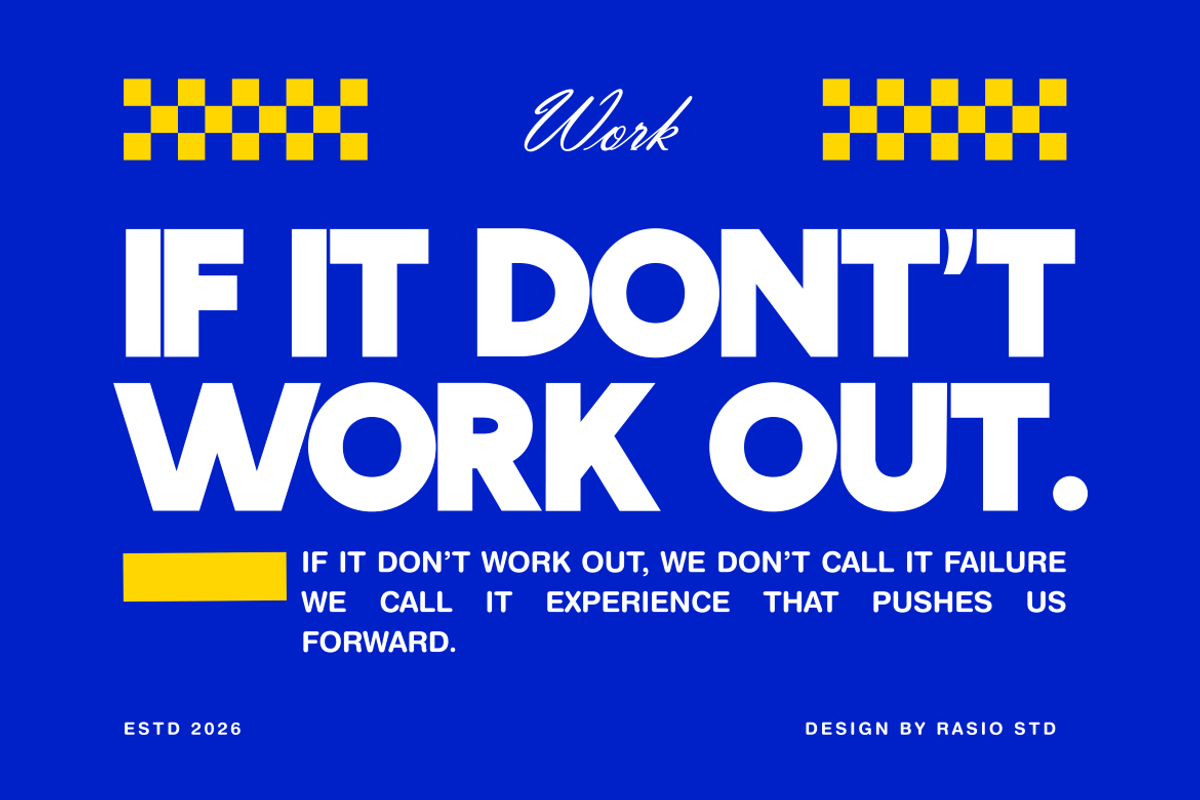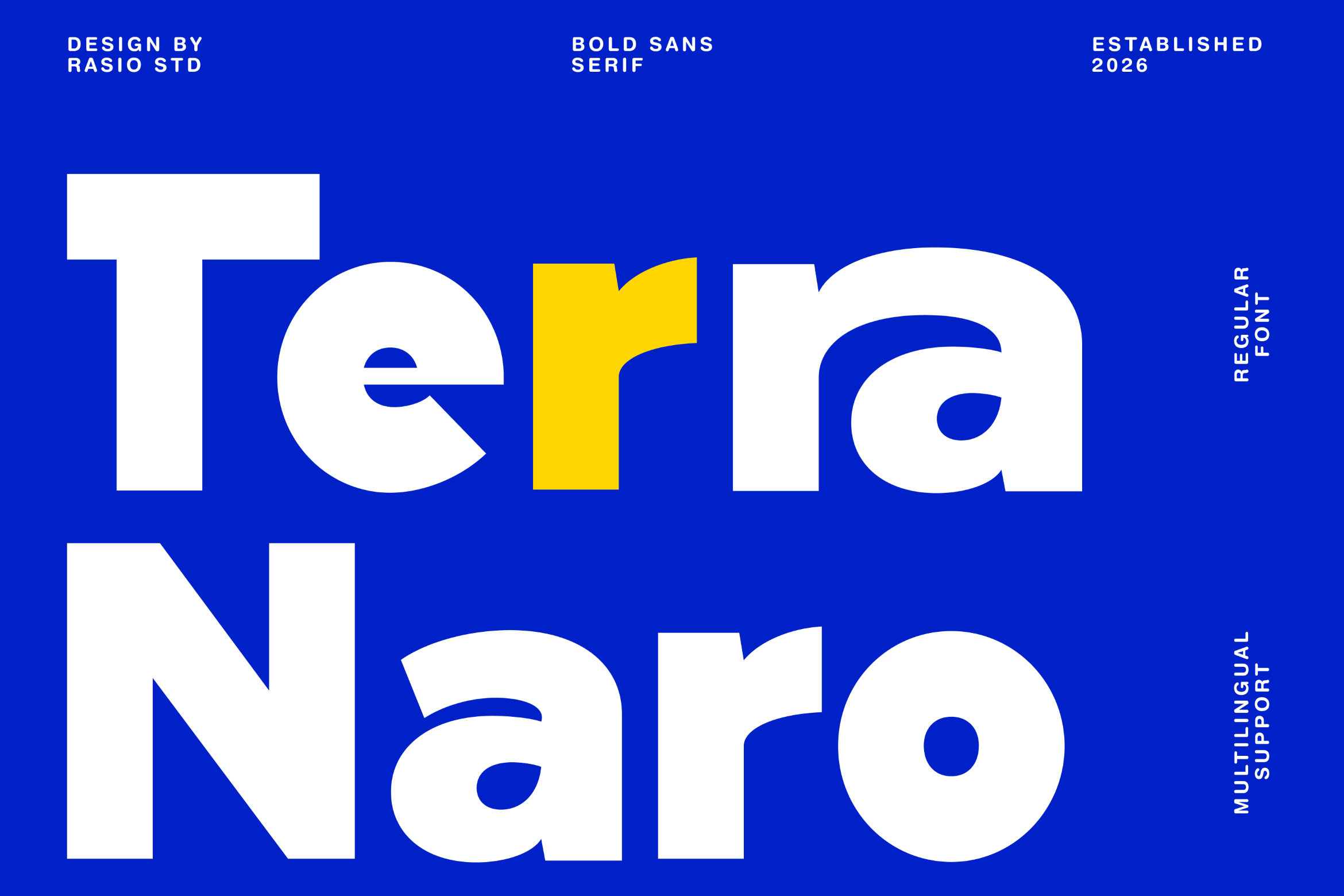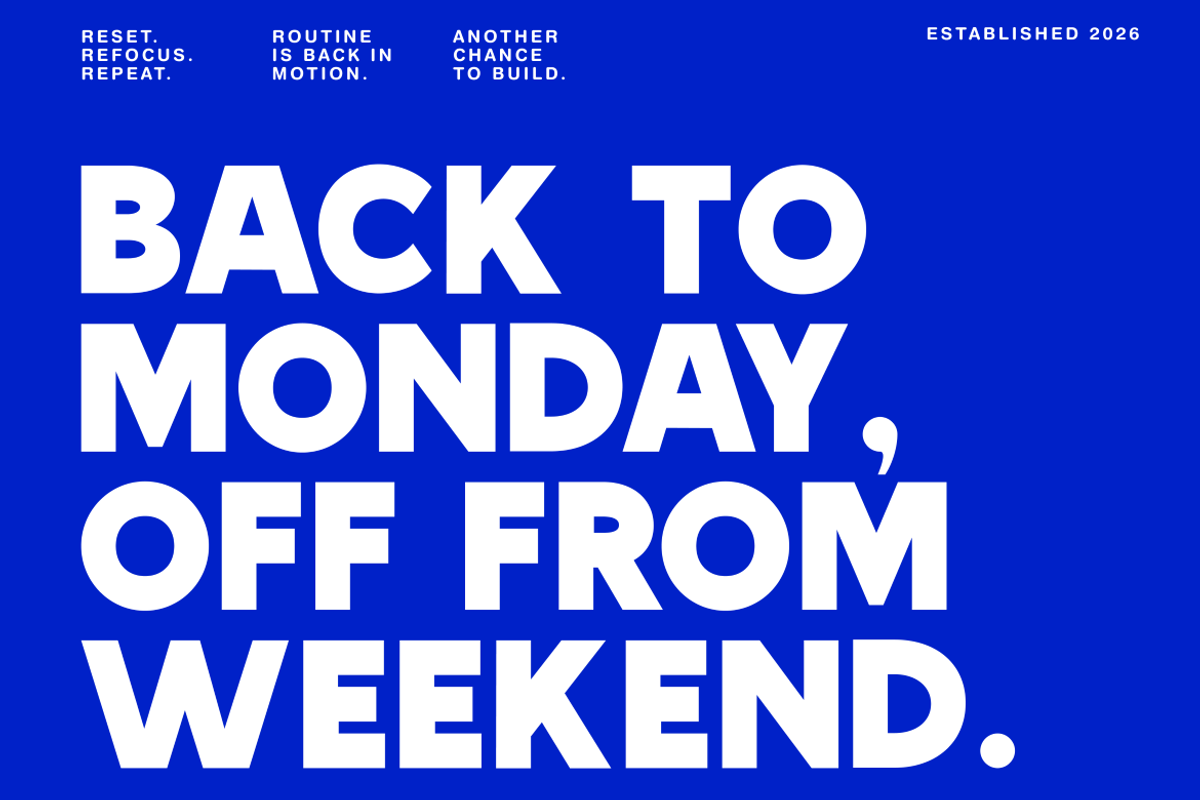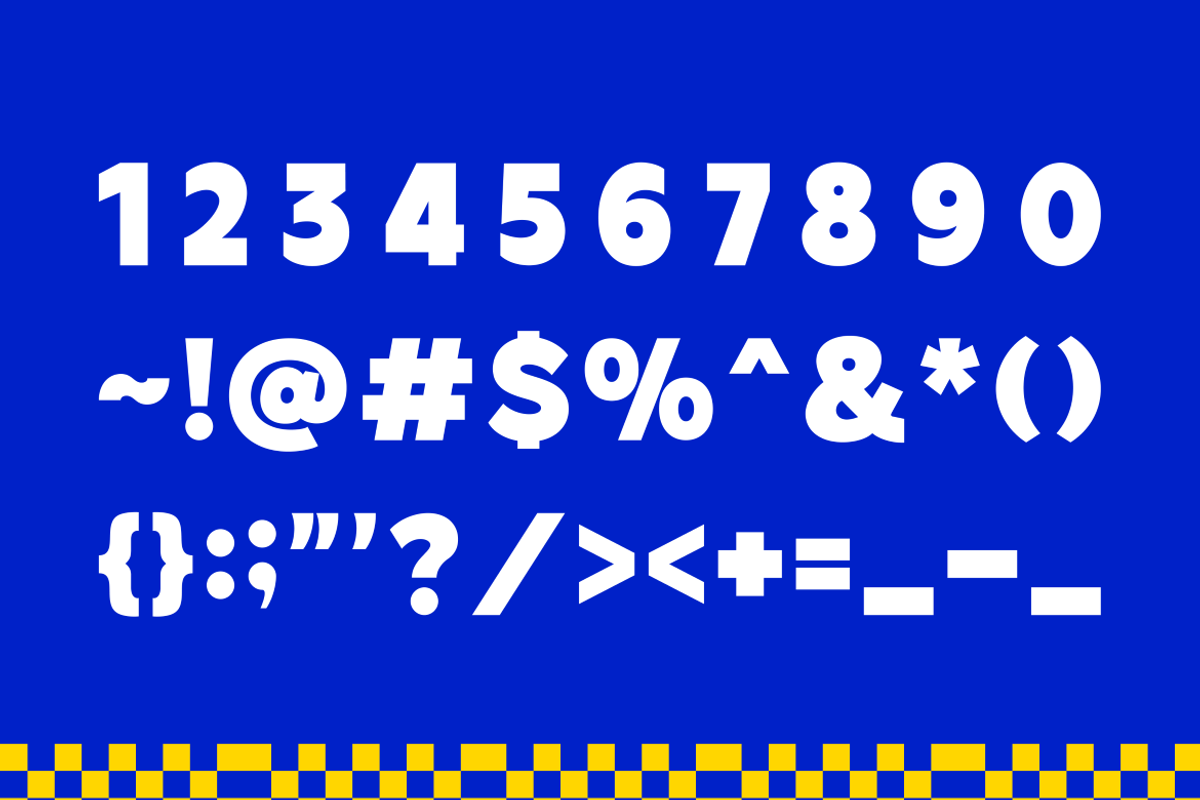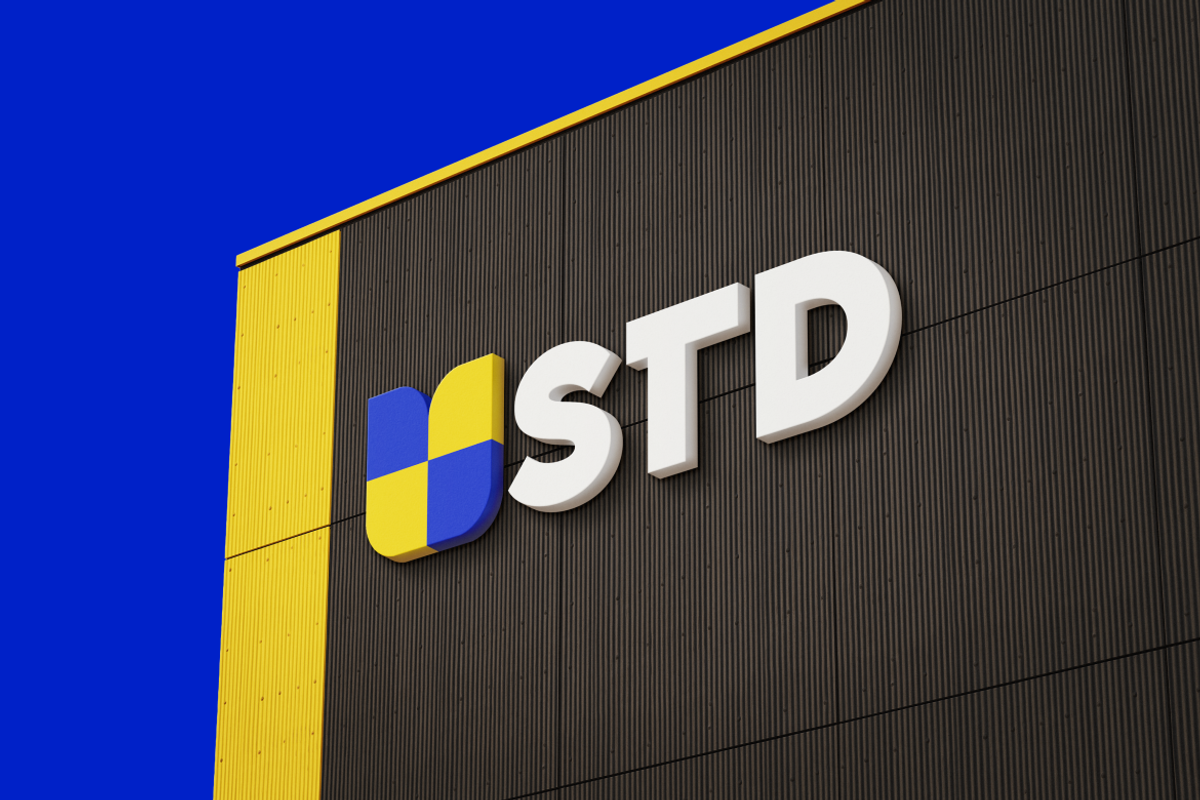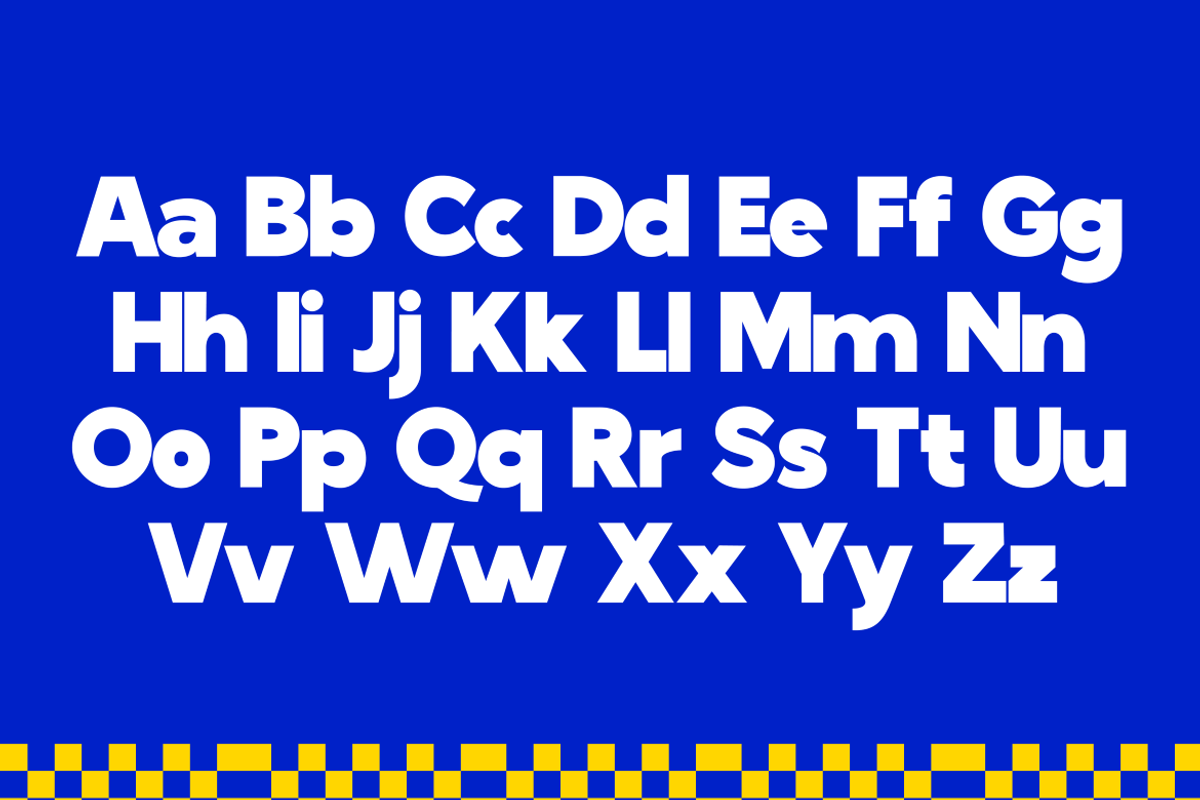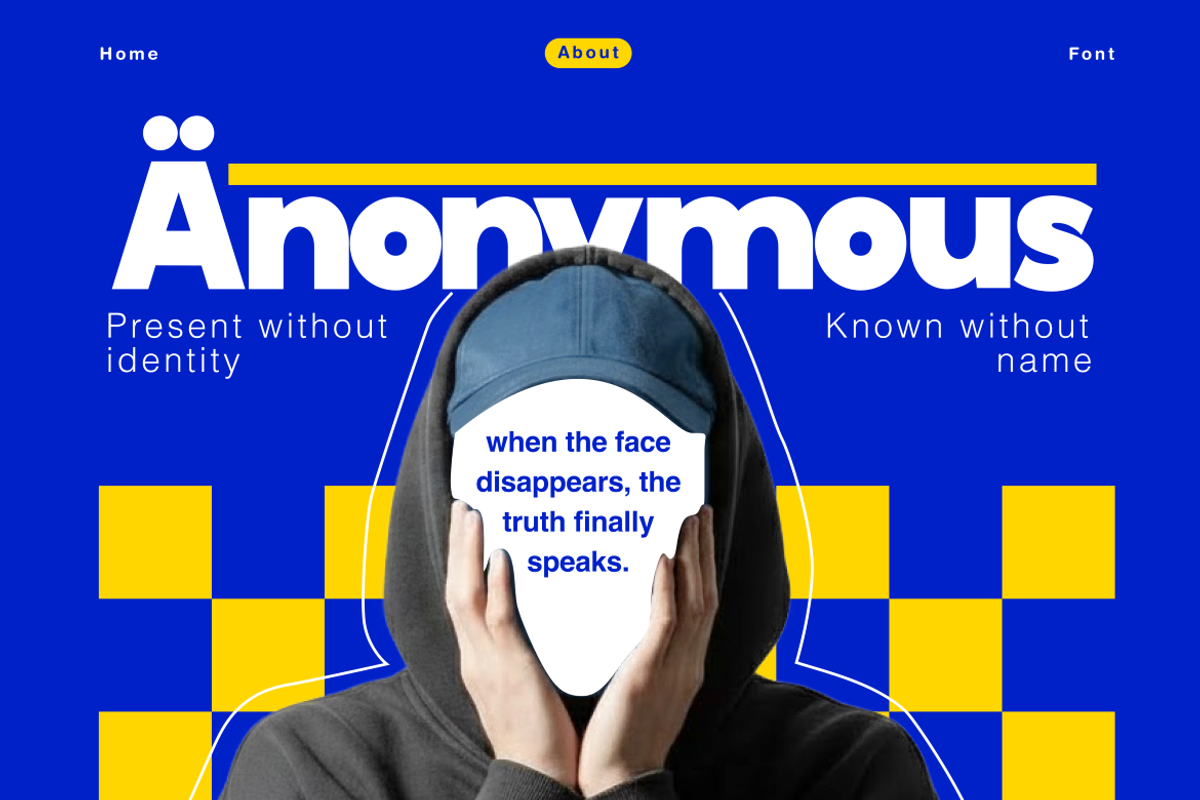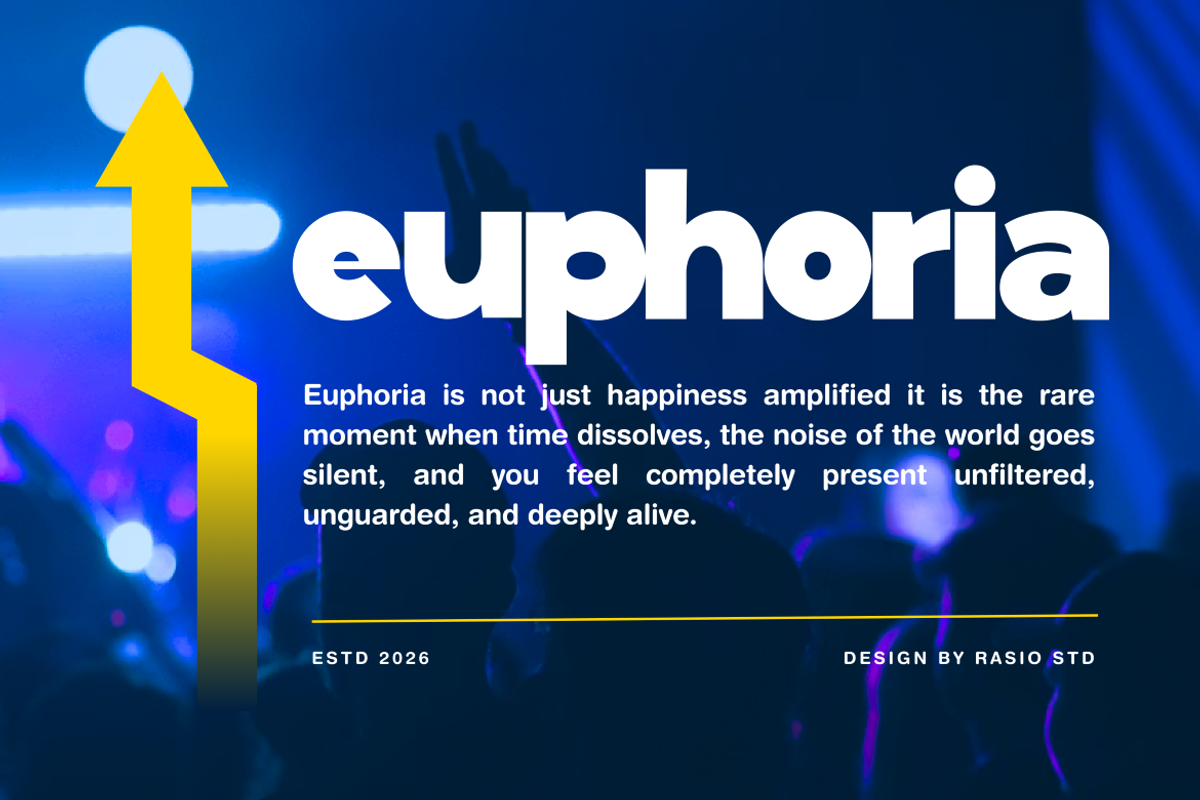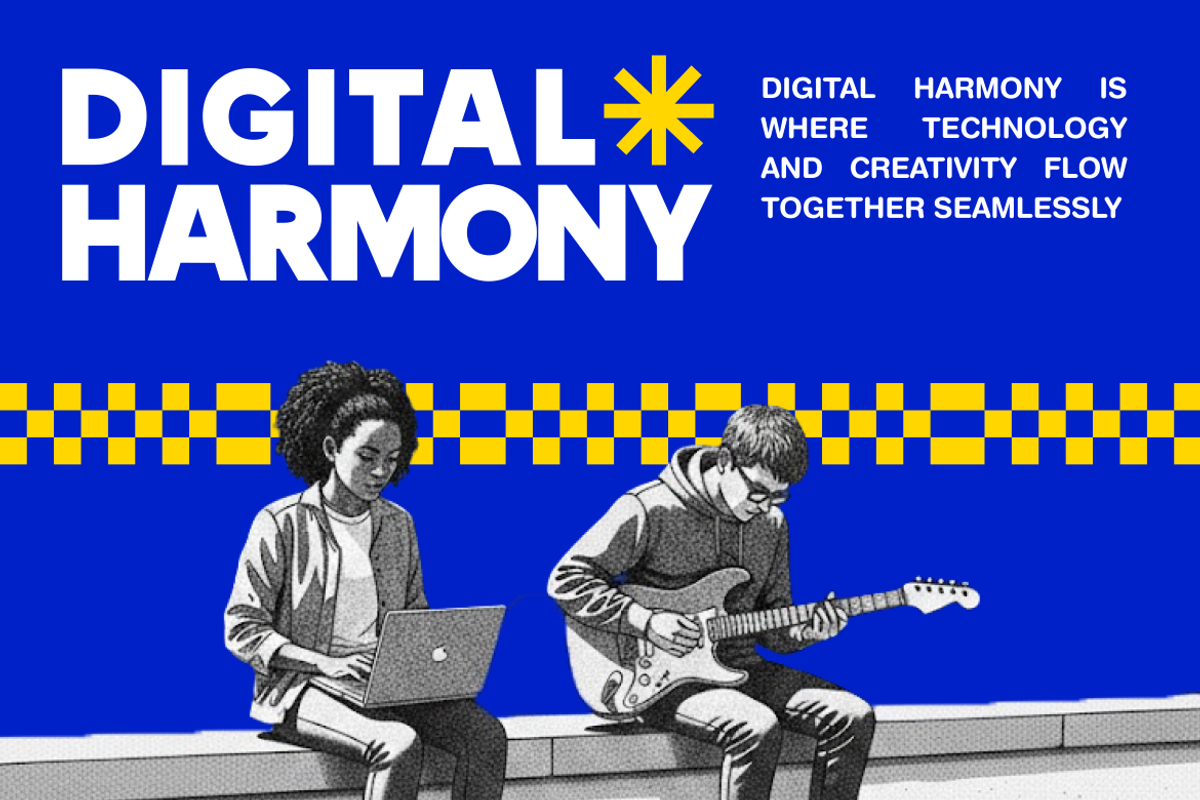
Terra Naro Bold Sans Serif Font
Terra Naro is a bold modern sans serif typeface built with strong geometric shapes and clean contemporary structure. The thick strokes and confident letterforms create a powerful visual presence that works perfectly for impactful headlines and modern branding.This font includes uppercase, lowercase, numbers, punctuation, and multilingual support, allowing it to perform across a wide range of professional design projects.
This font is relevant for modern design projects that require strong and confident typography. It works well for branding, logos, posters, advertising visuals, editorial layouts, packaging, social media graphics, and modern marketing materials. The bold geometric structure helps create powerful visual hierarchy while maintaining clarity and readability.
- Bold geometric letterforms with a strong modern structure
- Clean straight edges and solid shapes for confident visual impact
- Balanced proportions that enhance clarity in large headlines
- Consistent stroke weight for stable and modern typography
- Optimized spacing for clear and powerful display text
- Bold brand identity and modern logo design
- Eye-catching headlines, posters, and advertising graphics
- Contemporary packaging and product branding
- Editorial titles and strong visual layouts
- Social media graphics and modern marketing materials